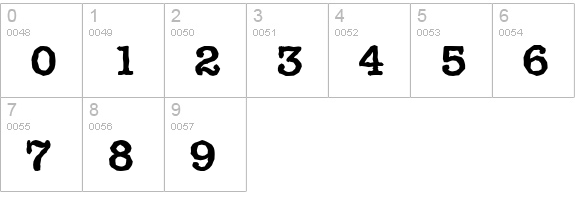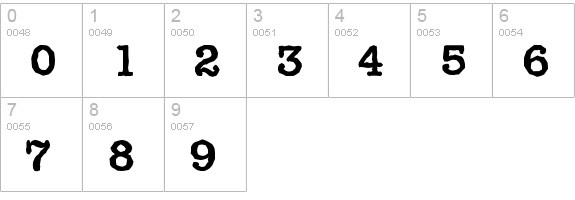
TypewriterAntique-Bold Font Details
TypewriterAntique-Bold is a strong, high-contrast variant in the TypewriterAntique typeface family \xE2\x80\x94 well suited to headlines, attention-grabbing titles, and strong calls-to-action.
TypewriterAntique-Bold font exudes a timeless charm and vintage elegance, making it the perfect choice for projects requiring a touch of nostalgia and sophistication. This font is a classic typewriter style with a bold weight, giving your text a strong and impactful presence. The sturdy, no-nonsense design of TypewriterAntique-Bold evokes a sense of reliability and tradition, making it ideal for a wide range of creative endeavors. Best of all, TypewriterAntique-Bold font is available for free download at FontsMarket.com. Whether you're working on a retro-inspired poster, a vintage-themed website, or a print publication that needs a touch of old-world flair, this font will elevate your design with its character and personality. Don't miss the opportunity to add TypewriterAntique-Bold to your font collection and bring a touch of classic elegance to your next project.